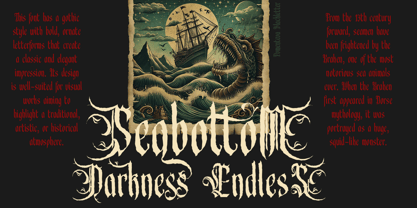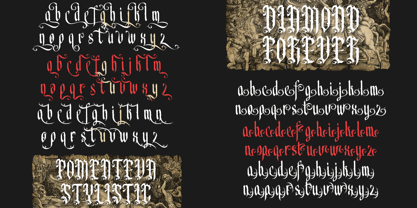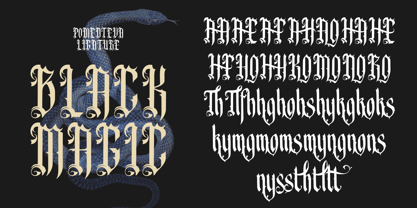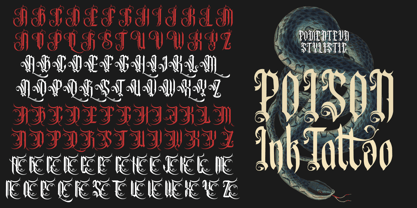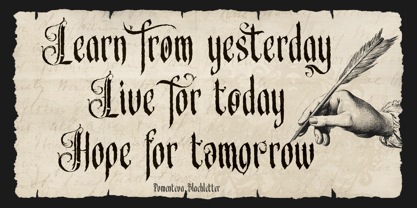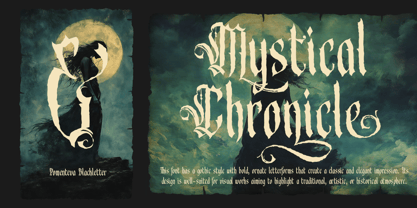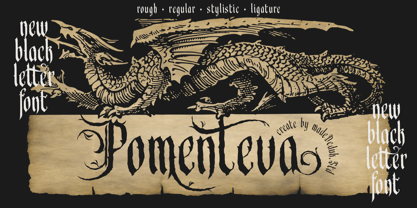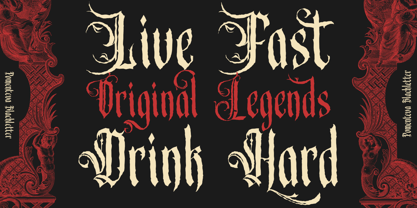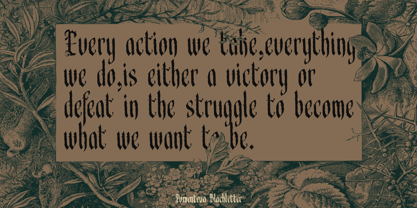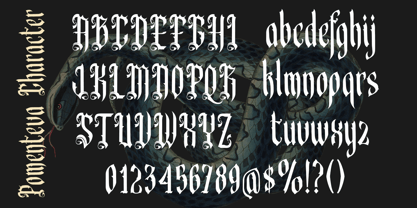
Pomenteva
by madeDeduk
The Pomenteva Font Family was designed by madededuk and published by madeDeduk. Pomenteva contains 2 styles and family package options. More about this family
Introducing Pomenteva, a striking gothic-style font characterized by bold letterforms and sharp edges that create a strong, classic presence. This versatile typeface is perfect for a variety of applications, including logos, titles, book covers, and posters, or any design that seeks a traditional, mysterious, and elegant touch. Whether you are crafting digital content or printed materials, Pomenteva conveys a powerful historic character, making it ideal for impactful branding and creative projects. With its unique style, Pomenteva excels in both contemporary and classic designs, ensuring your work leaves a lasting impression.
Designers: madededuk
Foundry: madeDeduk